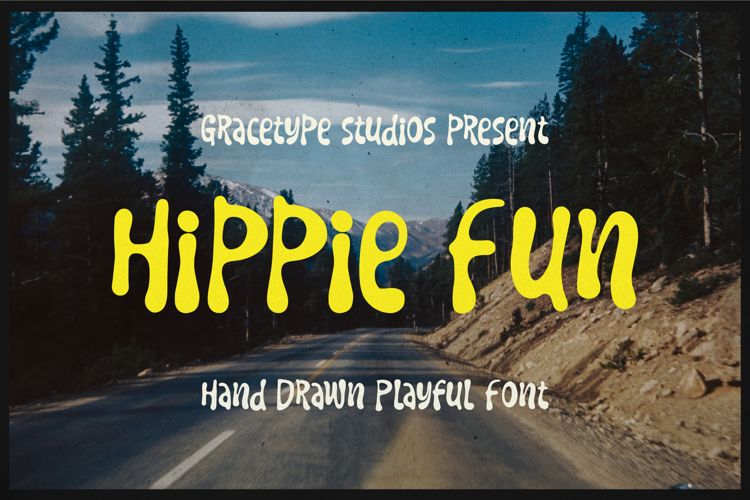
Hippie Fun Font
Hippie Fun | Hand Drawn Playful, is suitable for any projects such as: logos, branding projects, homeware designs, product packaging, mugs, quotes, posters, shopping bags, t-shirts, book covers, name card, invitation cards, greeting cards, label, photography, watermark, special events, and all your other lovely projects that need a Hand Drawn taste.